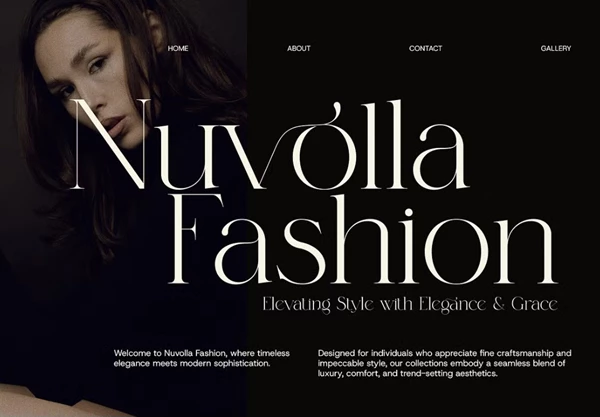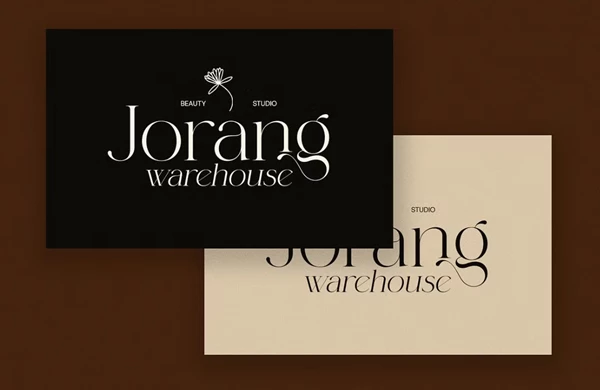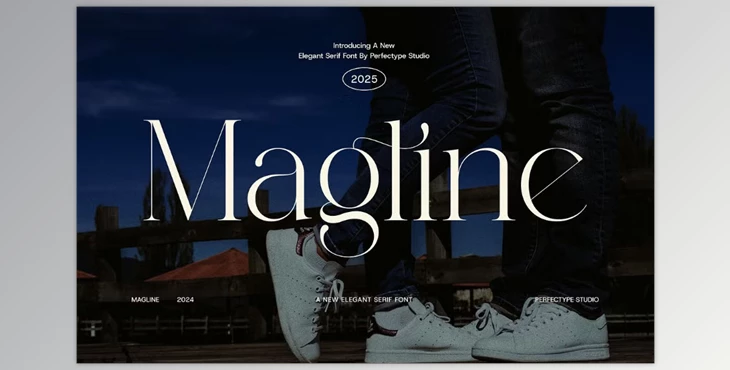
Margline Stylish Serif Font:
An incredibly modern and elegant serif font, Magline Elegant Serif Font is the perfect blend between contemporary minimalism and a classic take. This font is sure to make an impression with its delicately crafted characters, high contrast elements, and uniquely strong ligatures, where even the smallest text holds a hint of elegance. The delicate curves and text styling alternates make Magline seem luxurious, perfect for high-end branding and creative endeavors. Use Magline for your elegant logo, editorial projects, or high-end packaging, and it will provide a contemporary yet sophisticated style.
With unique ligatures and alternate characters, Magline provides a handwritten vibe without losing any craft, making it one of the ideal fonts for those who seek to combine elegance with modern type.
- Logos & Branding
- Fashion Editorials
- High End Packaging
- Website Creative Headers
- Boutique Promotions
- Social Media Graphics
Magline Elegant Serif Font comes equipped with all uppercase and lowercase characters, numbers, punctuation, multi-lingual versions, and an extensive luxury set with ligatures and alternates to allow for exceptionally layered typography made just for your brand.
Perfect for any sector that aims for high-end aesthetics, fashion, beauty, interiors, weddings, lifestyle branding, or high-end food or product campaigns, digital and print projects will welcome this font with ease.
From clean lines to ornate designs, Magline provides a serif solution that is practical yet beautiful. It's more than just a font; it's a magical tool meant to inspire an air of sophistication in any project.